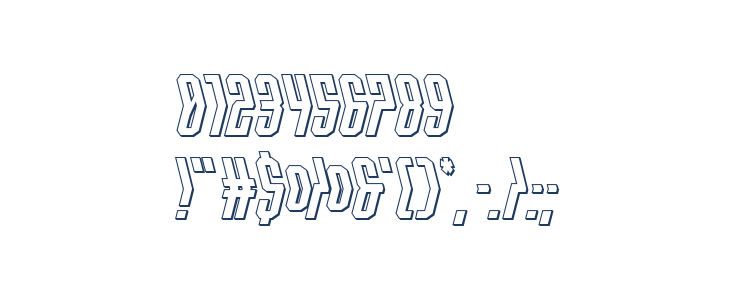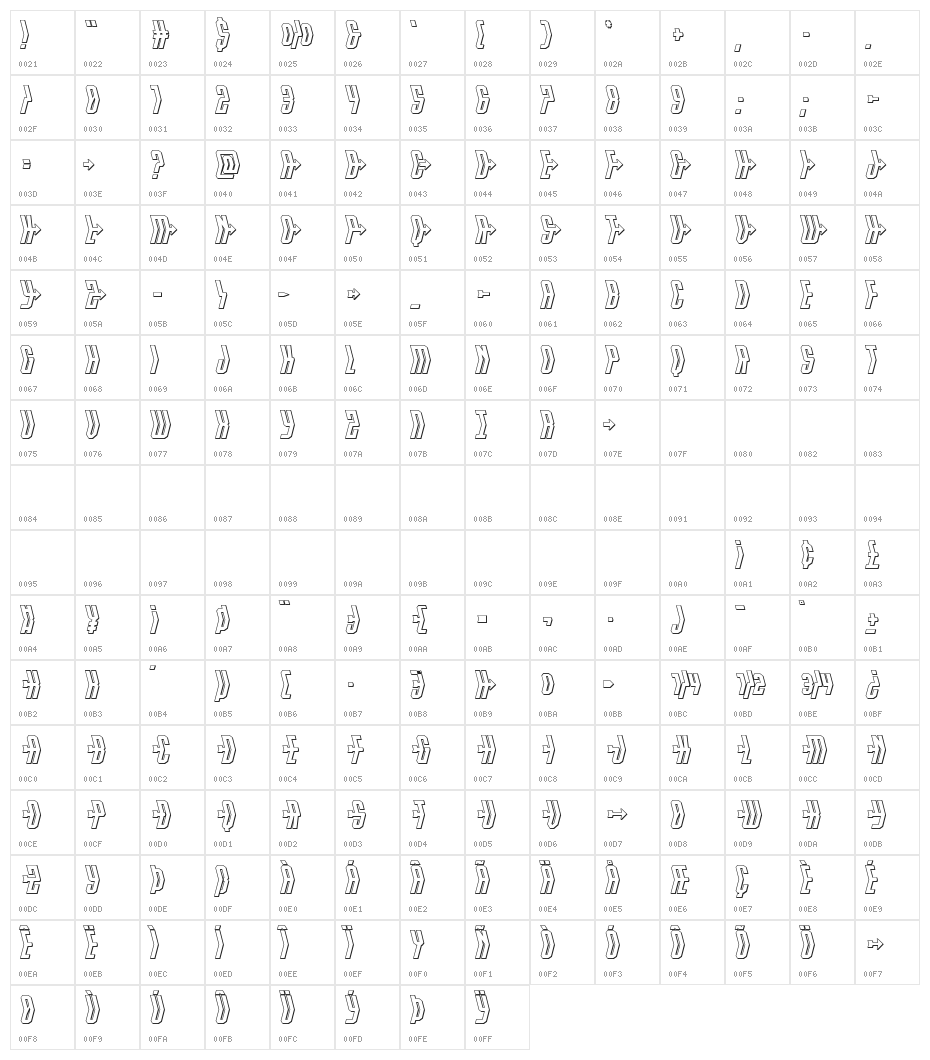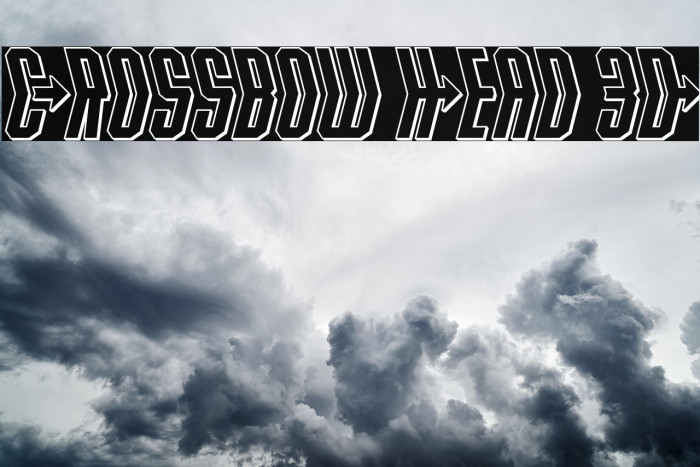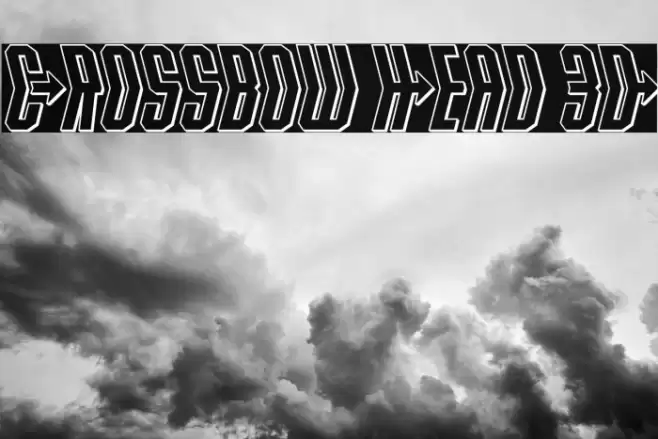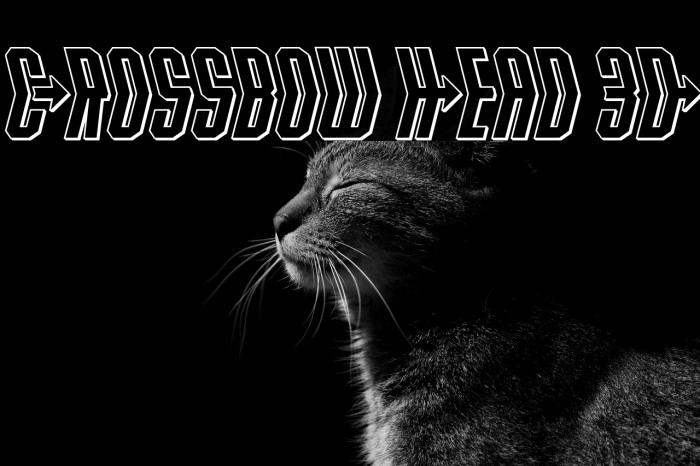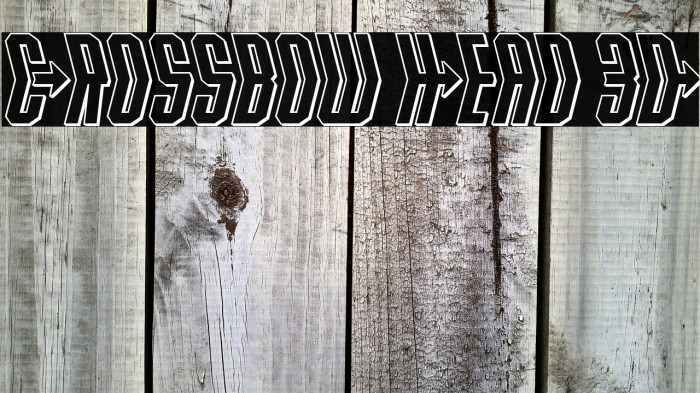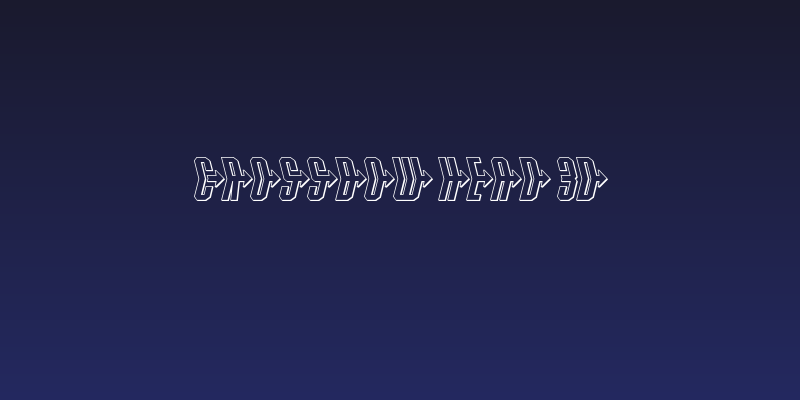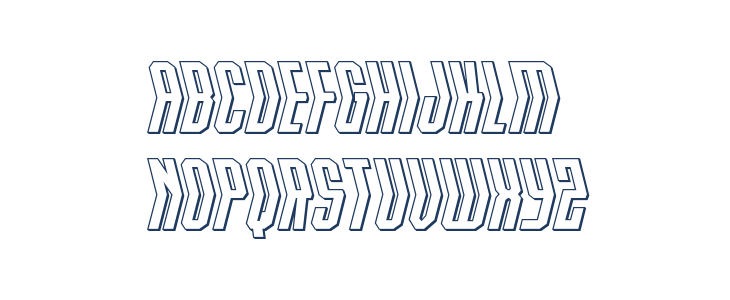
Crossbow Head 3D Font
Crossbow Head 3D Description
This font features a bold, three-dimensional design with a distinct geometric style. Each character is outlined with a shadow effect, giving it a dynamic and futuristic appearance. The angular and sharp edges create a sense of movement and energy, making it stand out in any design. The uppercase letters are particularly striking, with a uniform height and width that maintains consistency across the alphabet. The numbers and special characters follow the same design principles, ensuring a cohesive look. This font is ideal for projects that require a modern and edgy aesthetic.
Proposed ProjectsIdeal for video game titles, tech-themed posters, and futuristic branding.